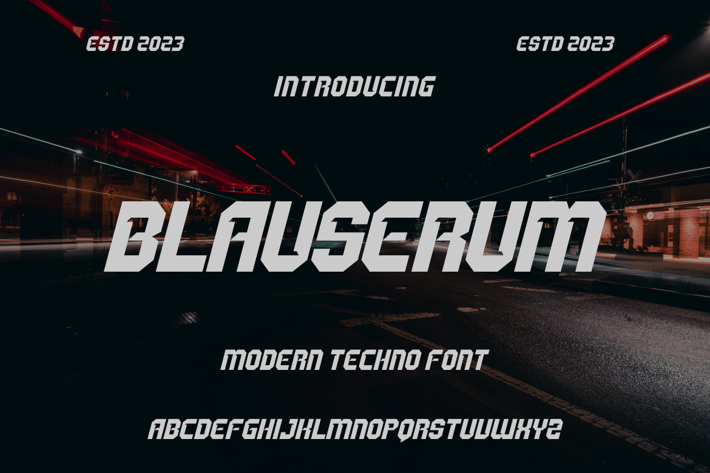
BLAUSERUM FONT
Introducing our new product BLAUSERUM FONT - Modern Font
BLAUSERUM FONT - Modern Font is a bold and authentic display font. The font is suitable for any branding project like logo, t-shirt printing, esport, and many more. outstanding in a wide range of contexts.